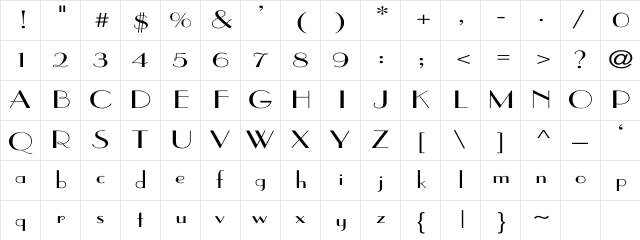
ParagonExt Regular Free Font
ParagonExt Regular
Design Context for ParagonExt
ParagonExt is a composed and adaptable typeface that performs quietly and consistently across a wide range of design contexts.